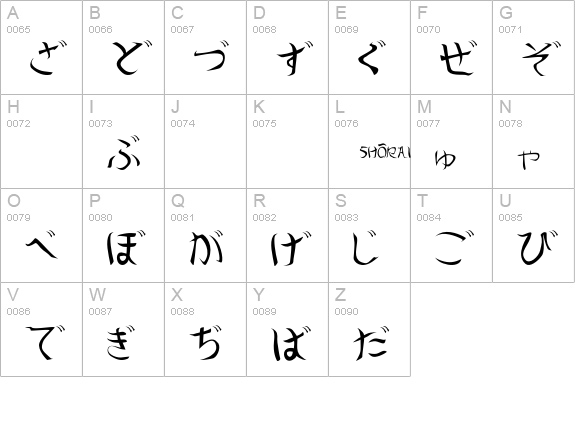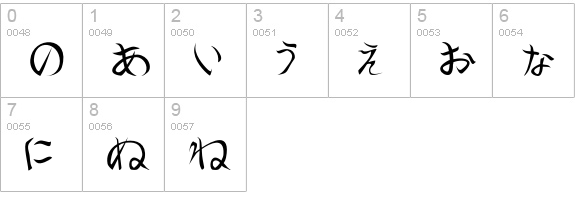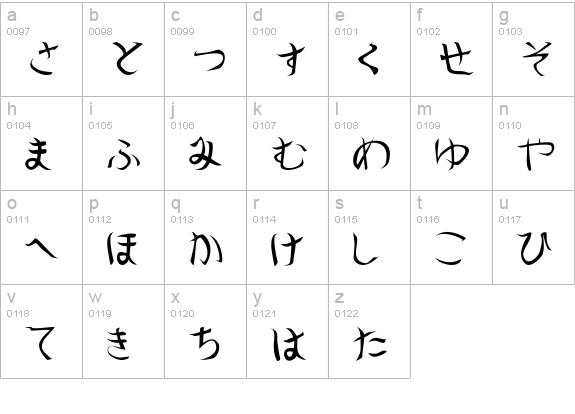
Shorai Font Details
Shorai font is a stunning display font that exudes elegance and sophistication. Its unique and intricate letterforms are sure to captivate and leave a lasting impression on any design project. With its bold strokes and delicate curves, Shorai font adds a touch of modernity and style to any creative endeavor. What sets Shorai font apart is not only its aesthetic appeal but also the fact that it is free. Yes, you heard that right! Shorai font is freely available to download at FontsMarket.com. This means that you can enhance your designs without spending a dime. Whether you are a professional designer or a hobbyist, Shorai font offers an opportunity to elevate your work without any financial burden. With its versatility, Shorai font can be used in a wide range of design projects. From logos and branding materials to invitations and posters, this font effortlessly adapts to any context and adds a touch of sophistication. Its clean and legible letterforms make it ideal for both digital and print applications. Not only does Shorai font offer a visually appealing aesthetic, but it also provides ease of use. Its well-crafted letterforms ensure smooth readability, making it a perfect choice for headlines, titles, and other prominent text elements. Whether you are designing for a website, a magazine, or any other medium, Shorai font will undoubtedly make a statement. By choosing Shorai font, you are not only accessing a high-quality typeface, but you are also joining a community of designers who appreciate the value of freely available resources. FontsMarket.com understands the importance of accessibility in the design world and aims to provide designers with the tools they need to bring their visions to life. So why wait? Download Shorai font today and unlock a world of design possibilities. Let this font inspire and elevate your creativity, all while enjoying the freedom of using a high-quality typeface without breaking the bank.